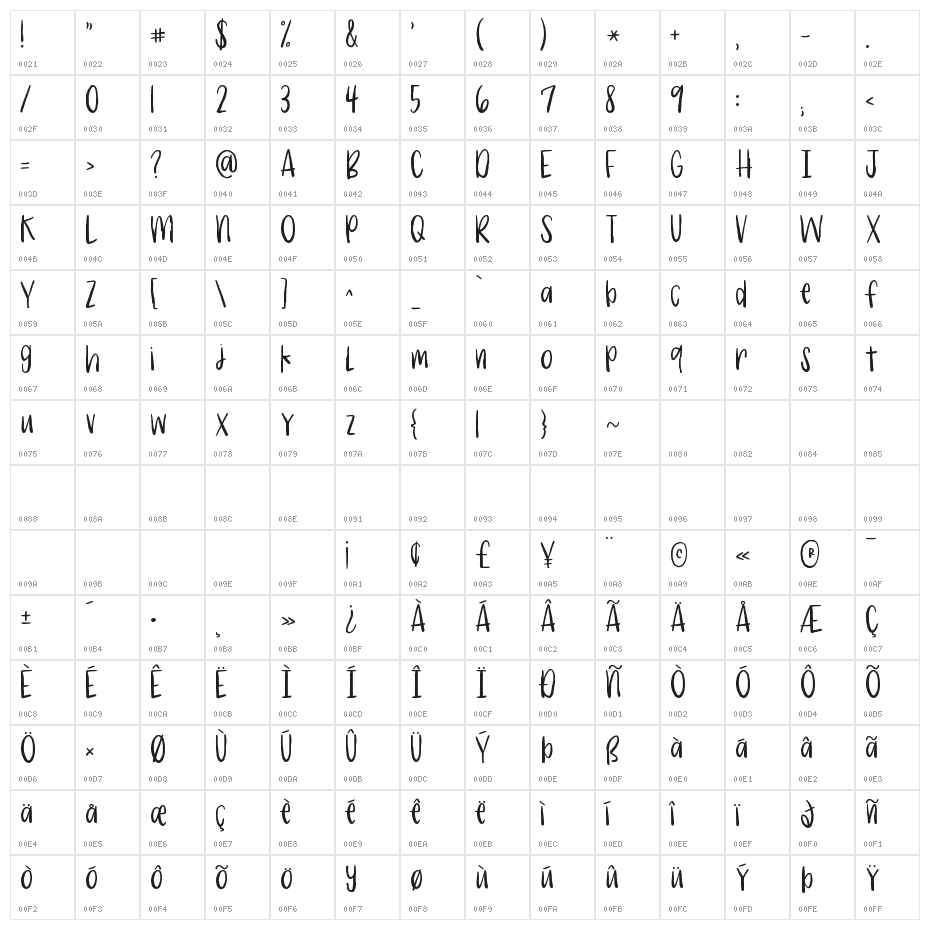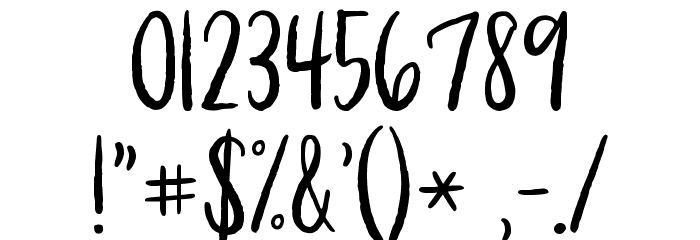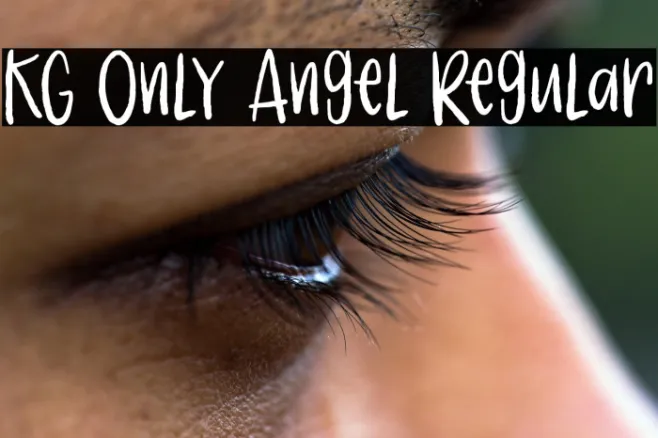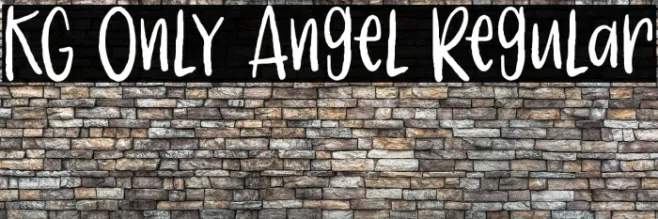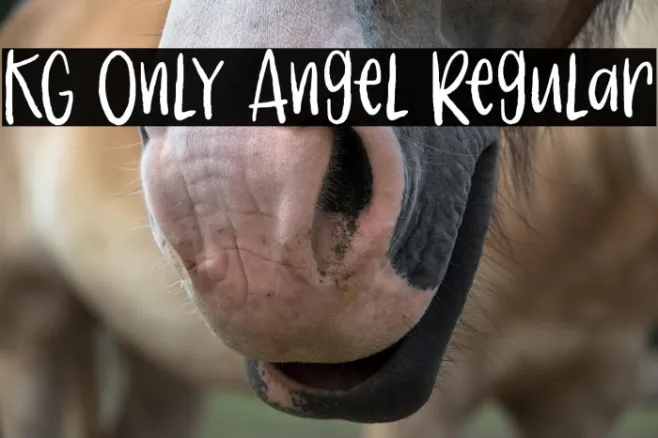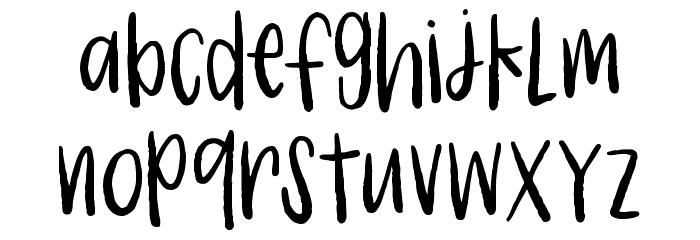
KG Only Angel Regular Font
KG Only Angel Regular Description
This font features a playful and casual handwritten style, characterized by its uneven strokes and slightly irregular baseline. The letters have a tall, narrow appearance with a slight slant, giving it a dynamic and energetic feel. The uppercase and lowercase letters maintain a consistent style, with rounded edges and a friendly, approachable look. The numerals and special characters follow the same design principles, ensuring a cohesive appearance across all text. This font is perfect for projects that require a personal touch or a sense of whimsy.